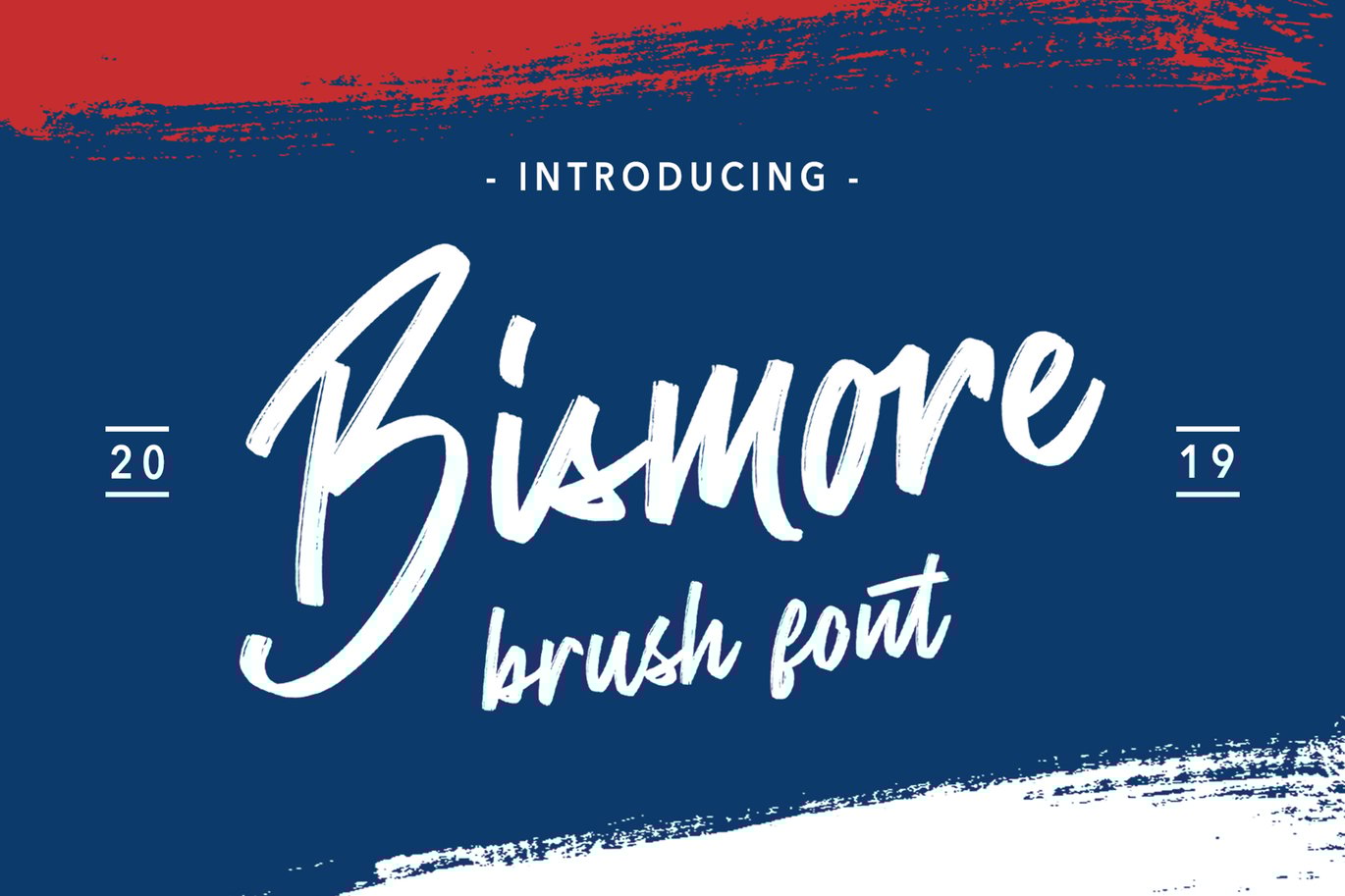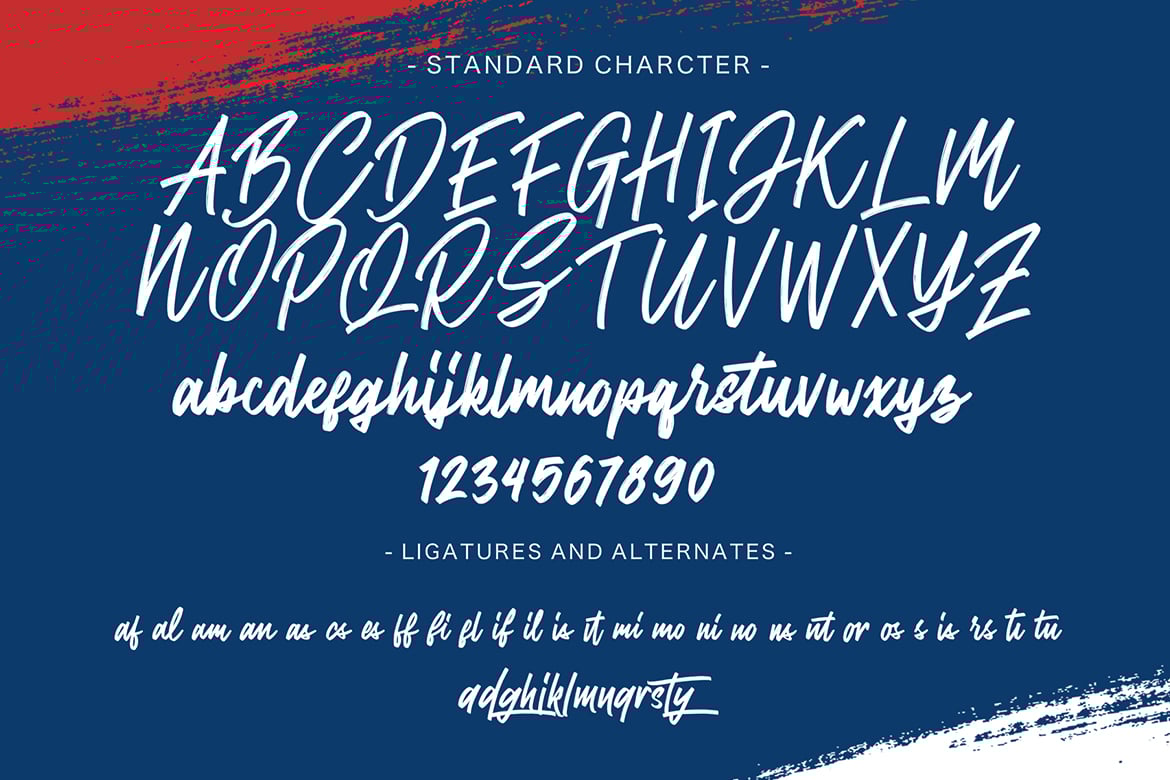
Bismore – Brush Font
Introducing Bismore brush font which has a hand lettering brush style. So it looks natural like a handmade. This font is best used for your design project that has the concept of fun, girly, romantic and elegant. Can also be applied to the design of a logotype, header website, wedding logo, romantic design, makes some lettering a quote, T-shirt design etc.
Character Set A-Z
Numerals & Punctuations (OpenType Standard)
Ligatures
Stylistic Alternates
SS01